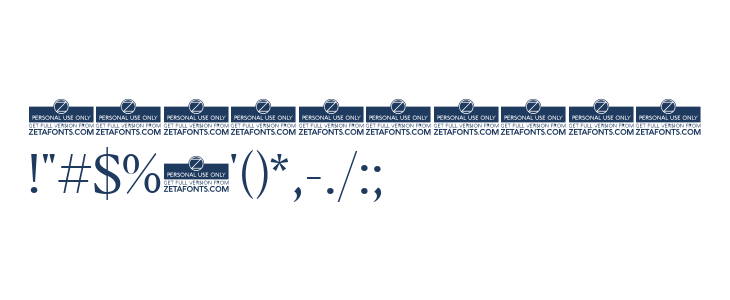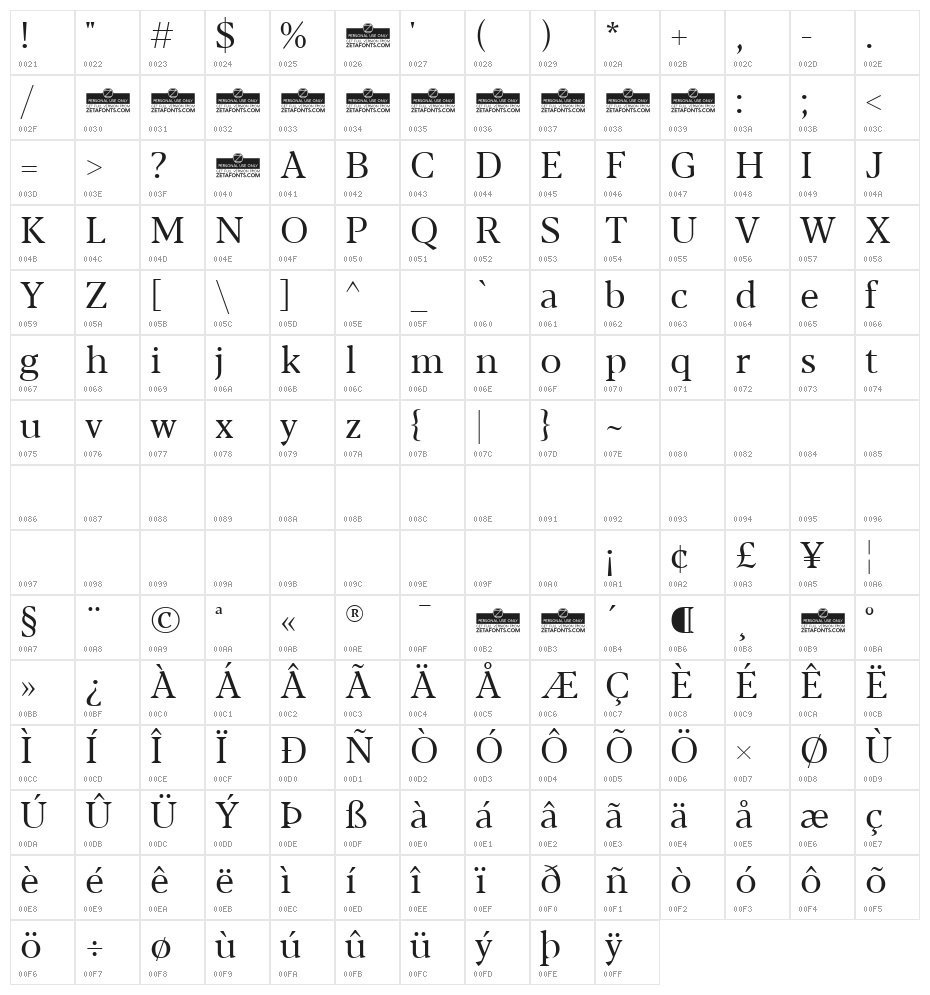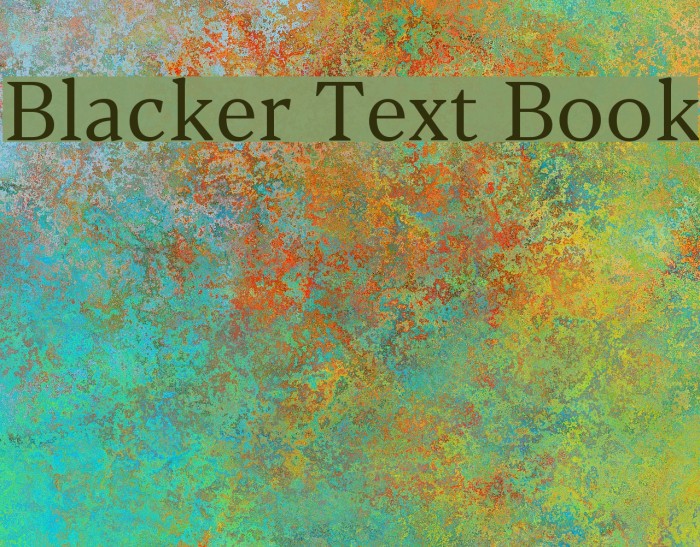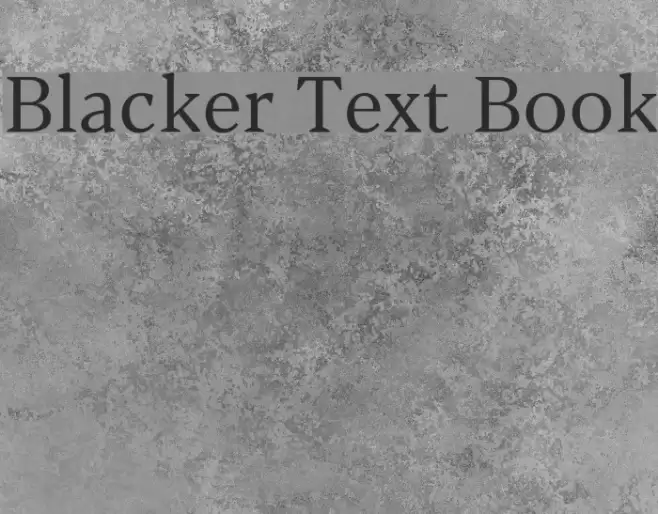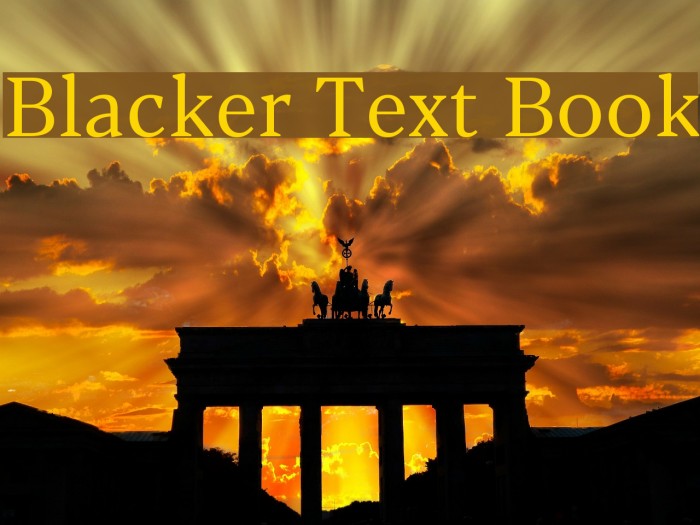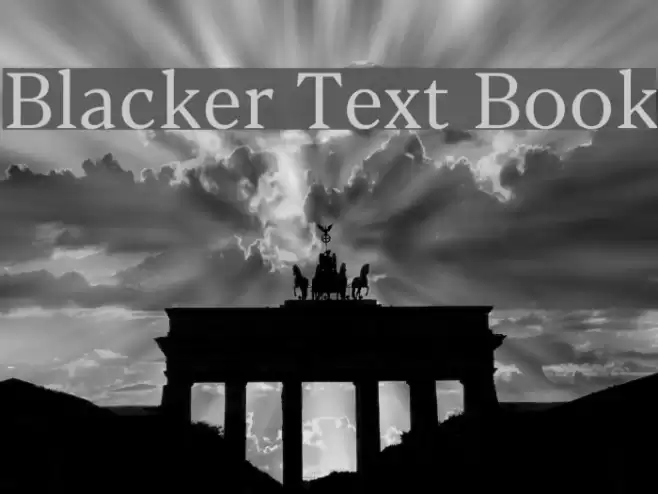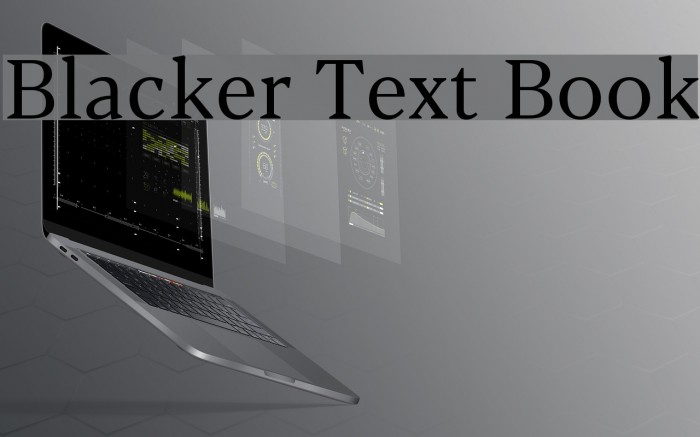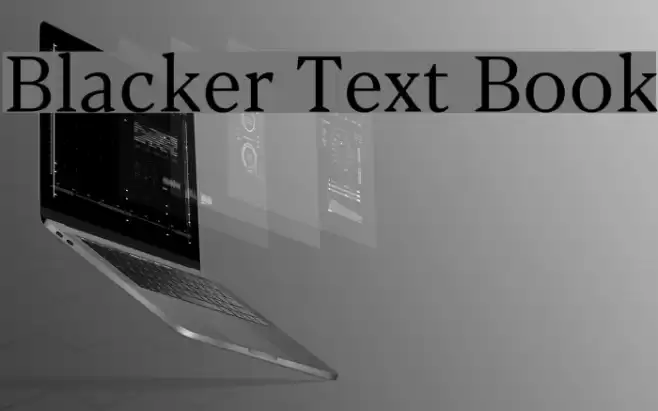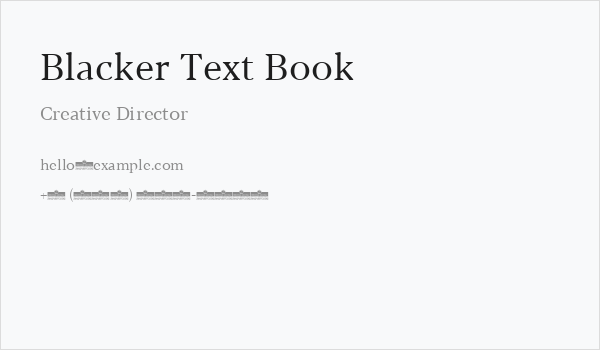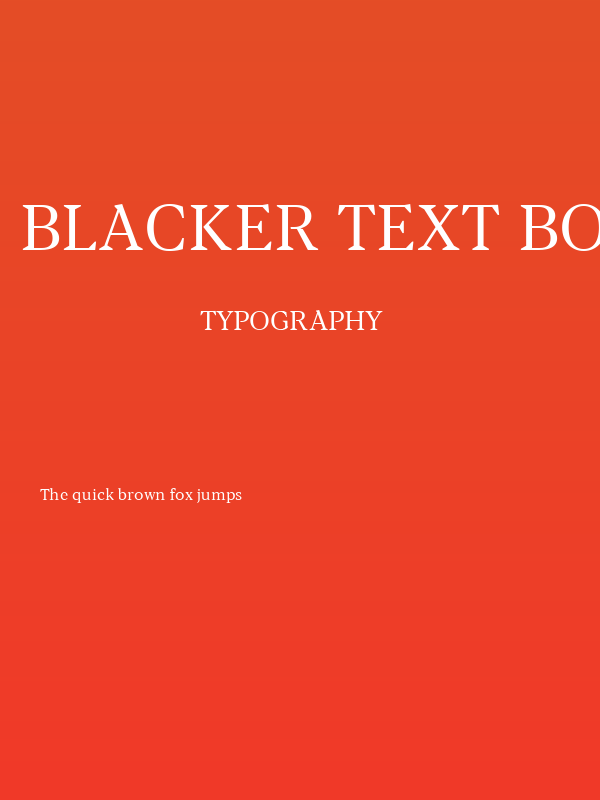
Blacker Text Book Font
Blacker Text Book Description
This font exhibits a classic serif style with a strong presence and elegant curves. The uppercase letters are bold and commanding, while the lowercase letters maintain a refined and sophisticated appearance. The numerals are clear and balanced, making them easily readable. Special characters are well-integrated, maintaining the overall aesthetic. The font's design is suitable for conveying a sense of tradition and reliability, making it ideal for formal documents, editorial design, and branding projects that require a touch of elegance.
| Proposed Projects | Ideal for editorial design, formal documents, branding, and any project requiring a traditional and reliable aesthetic. |